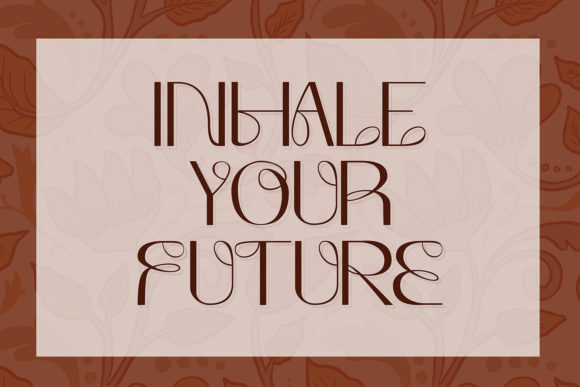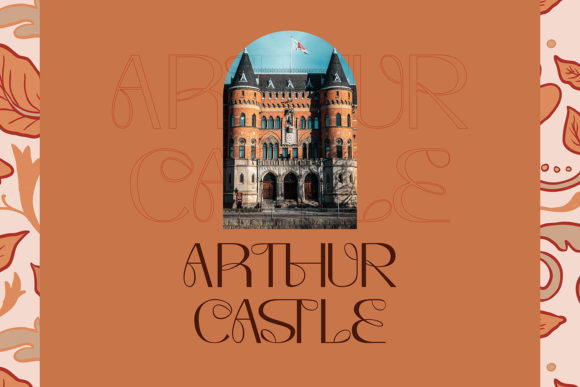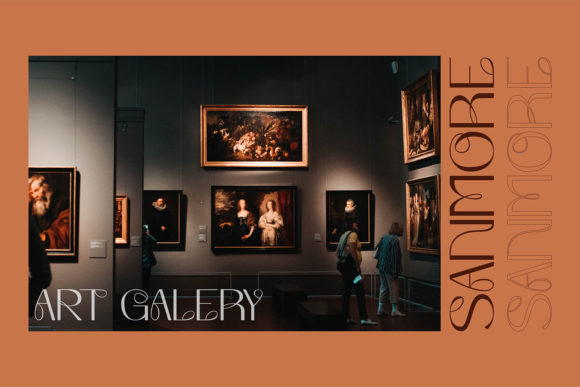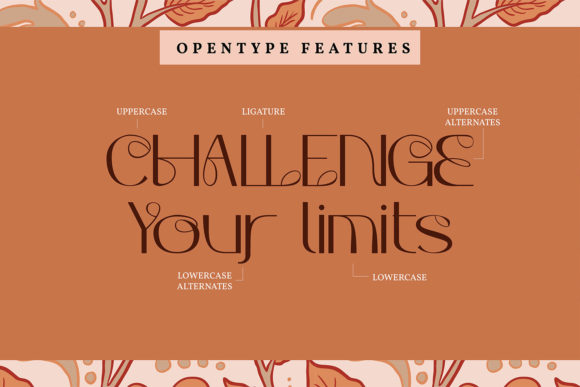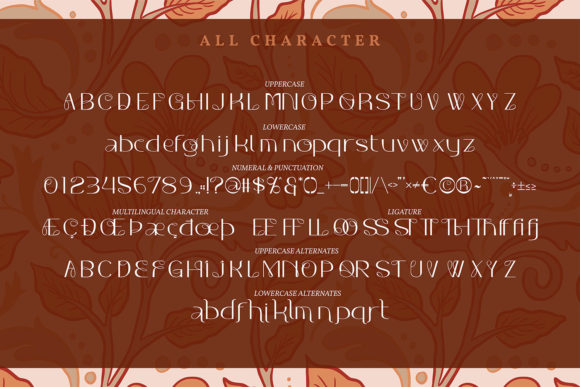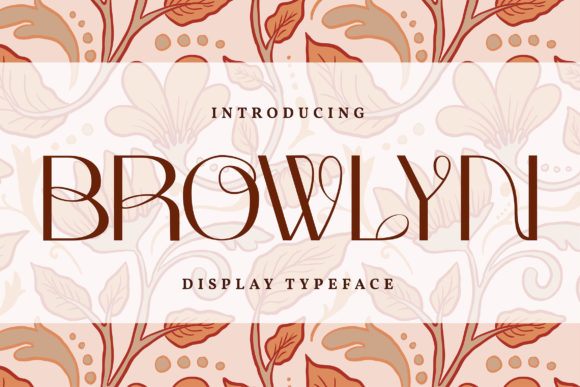
Browlyn Font: Elevate Your Designs with a Touch of Chic and Modernity
In the world of typography, fonts play a crucial role in conveying the tone and aesthetic of a design. For designers and crafters looking to add a touch of elegance and sophistication to their creations, the Browlyn Font is an excellent choice. This thin lettered, chic, and modern looking display font is perfect for those who want to make a statement with their designs.
What Makes Browlyn Font Stand Out?
Browlyn Font is a stunning example of modern typography, with its slender lines and sleek curves. Its unique design makes it perfect for a variety of applications, from branding and advertising to packaging and digital media. The font’s clean and minimalist aesthetic ensures that it can be paired with a wide range of design styles, from simple and elegant to bold and playful.
One of the standout features of Browlyn Font is its PUA (Private Use Area) encoding. This means that users can access all glyphs and swashes with ease, giving them complete creative control over their designs. With PUA encoding, designers can effortlessly navigate the font’s extensive character set, including alternative letters, ligatures, and decorative swashes.
Endless Design Possibilities with Browlyn Font
The versatility of Browlyn Font makes it an excellent addition to any designer’s toolkit. Whether you’re working on a logo, brochure, or social media graphics, this font is sure to impress. Its thin lettering and modern aesthetic make it perfect for:
- Logos and branding: Create a lasting impression with a custom logo that exudes elegance and sophistication.
- Advertising and marketing: Grab attention with eye-catching headlines and promotional materials.
- Packaging design: Elevate your product packaging with a font that conveys luxury and refinement.
- Digital media: Add a touch of modernity to your website, blog, or social media graphics.
Tips for Using Browlyn Font Effectively
To get the most out of Browlyn Font, here are a few design tips to keep in mind:
- Pair with bold colors: The font’s thin lettering looks stunning when paired with bold, bright colors.
- Experiment with swashes: Use the font’s decorative swashes to add a touch of whimsy to your designs.
- Keep it simple: Don’t be afraid to use Browlyn Font on its own – its clean aesthetic makes it perfect for simple, yet effective designs.
In conclusion, Browlyn Font is a versatile and stylish addition to any designer’s toolkit. Its unique blend of thin lettering, chic aesthetic, and PUA encoding make it perfect for a wide range of design applications. Whether you’re a seasoned designer or a crafty DIY enthusiast, Browlyn Font is sure to elevate your creations and leave a lasting impression on your audience. So why wait? Add Browlyn Font to your collection today and discover a world of limitless design possibilities!
- Thin lettered, chic, and modern looking display font
- Perfect for logos, branding, advertising, packaging, and digital media
- Clean and minimalist aesthetic
- Endless design possibilities